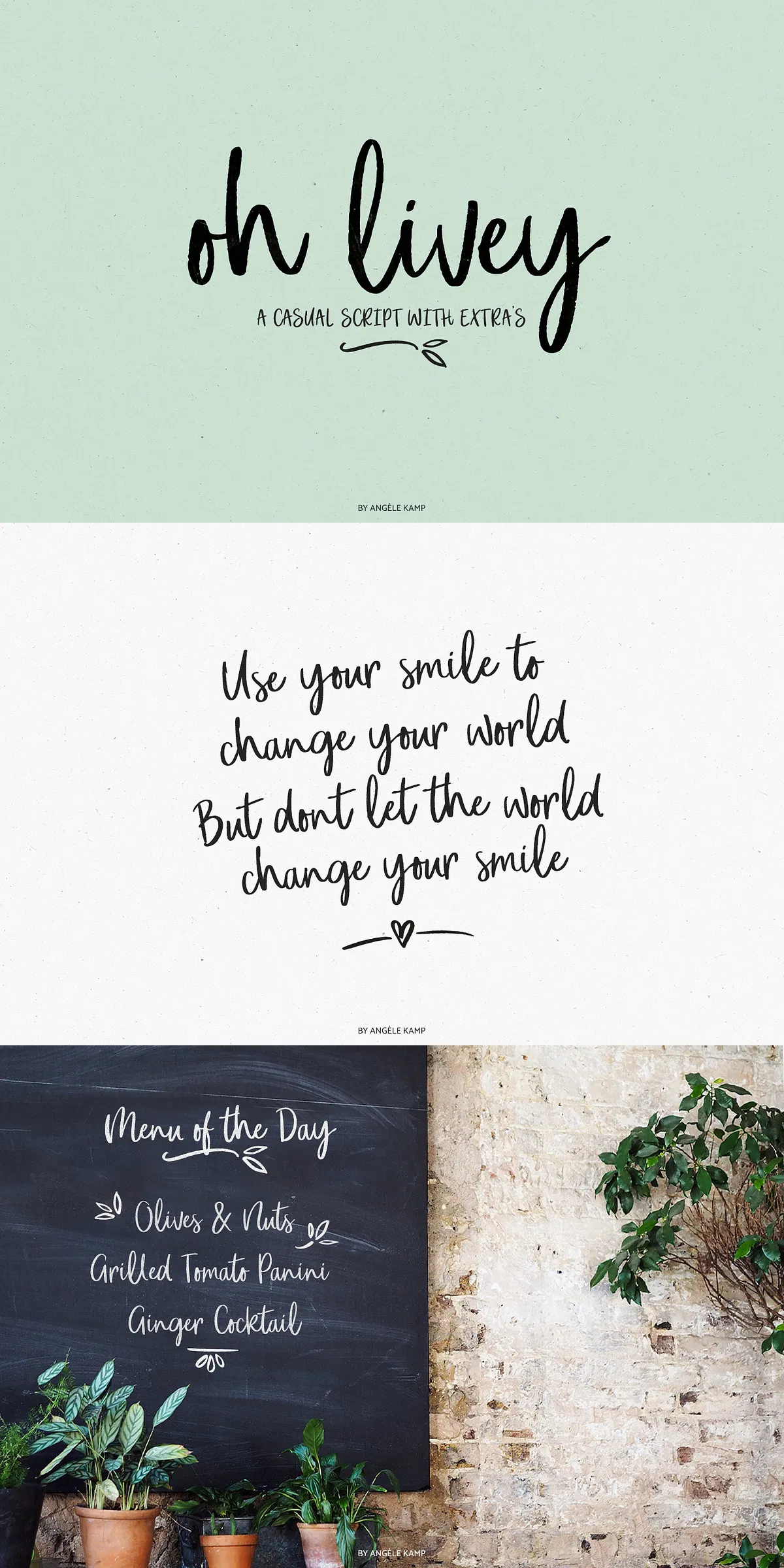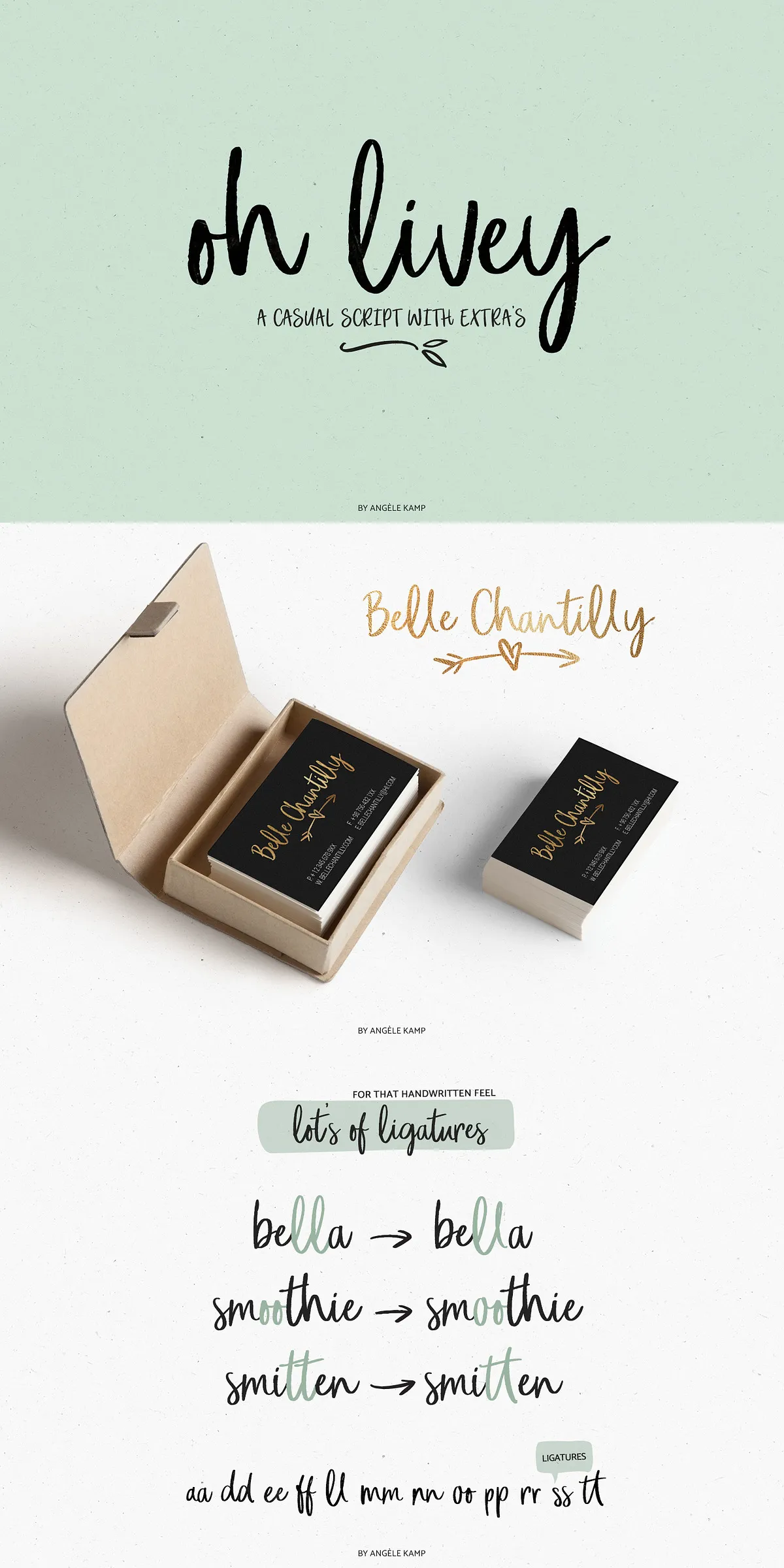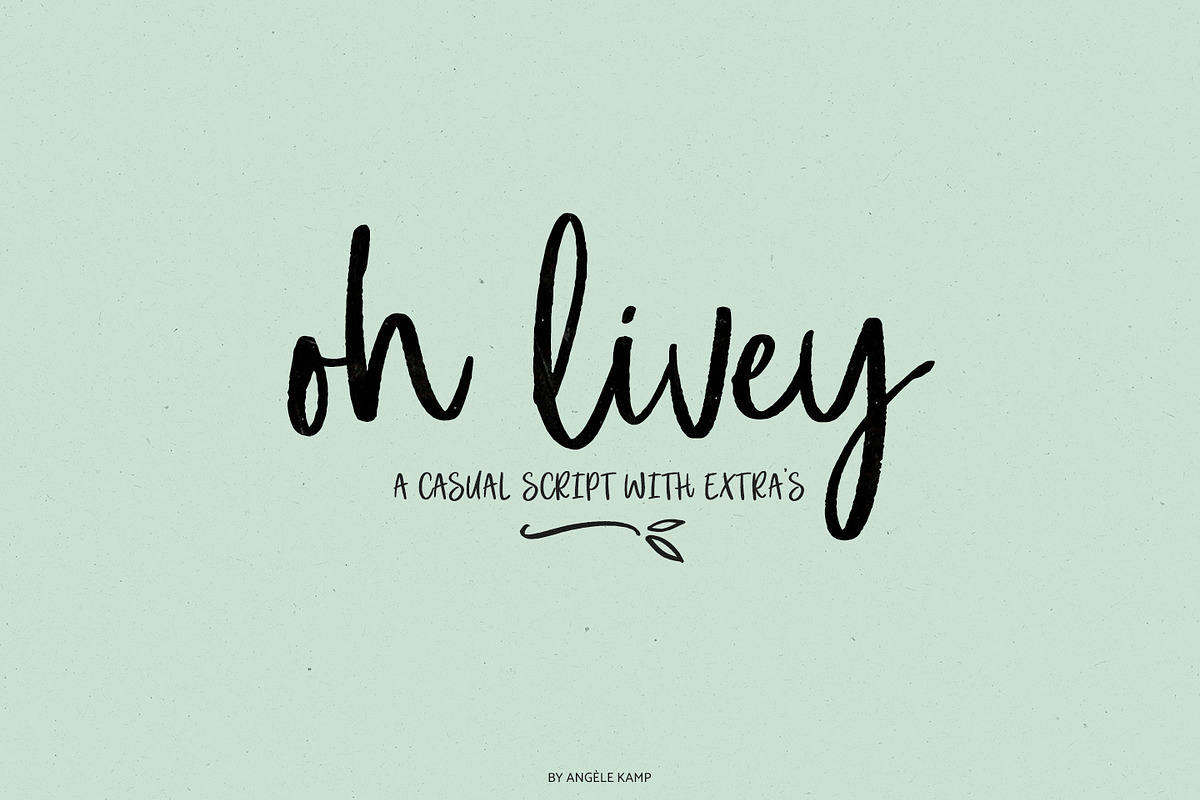
Step into a world where casual brush strokes meet precision engineering. Oh Livey delivers a lively, contemporary vibe that instantly captures attention on quotes, websites, marketing materials, and any creative canvas you choose. The font’s energetic flow encourages designers to experiment, while the built‑in ligatures preserve a genuine handwritten feel. Every character feels hand‑drawn, yet the digital format guarantees consistency across platforms.
Why Oh Livey Elevates Your Creative Projects and Boosts Brand Personality
When you need a typeface that feels both relaxed and refined, Oh Livey answers the call. Its brush‑style strokes convey approachability, making it ideal for lifestyle brands, boutique cafés, wedding invitations, and social‑media graphics. The font’s modern rhythm guides the eye, encouraging readers to linger on the message. By choosing Oh Livey, you empower your audience to experience a friendly, human touch that static sans‑serif fonts rarely achieve.
Dynamic Features That Drive Design Efficiency and Visual Impact
- Rich Ligature Set – Over a dozen contextual ligatures automatically smooth awkward letter combinations, delivering fluid, uninterrupted handwriting that feels natural and purposeful.
- Extra Clipart Collection – The bundled Extras pack (OTF + EPS vector) provides ready‑to‑use decorative elements. Simply type the letters a‑z to reveal a library of whimsical graphics that enrich posters, packaging, and digital ads.
- Versatile Weight Options – Use the regular brush weight for subtle statements or amp up the bold version for headlines that demand immediate attention. Both weights maintain legibility, even at smaller sizes.
Meet the Visionary Behind Oh Livey – Designer Angele Kamp
Angele Kamp channels her love for florals, botanicals, watercolors, and hand‑lettering into every glyph she creates. Her design philosophy blends feminine elegance with organic shapes, resulting in a typeface that feels both elegant and approachable. Angele’s portfolio spans worldwide collaborations, delivering art, illustrations, and fonts that resonate with creators seeking a soft, nature‑inspired aesthetic. With Oh Livey, she captures the spontaneity of a brushstroke while preserving the precision required for professional design work.
How Oh Livey Complements Your Existing Brand Toolkit
Pair Oh Livey with clean, geometric sans‑serif fonts such as Montserrat, Roboto, or Open Sans to create a balanced visual hierarchy. The brush script supplies warmth and personality, while the sans‑serif anchors the layout with modern clarity. This combination works especially well for:
- Brand identities seeking a handcrafted, boutique feel.
- Social‑media posts that require eye‑catching headlines.
- Print assets like business cards, flyers, and invitation suites.
- Website headers, banner ads, and e‑commerce product descriptions.
- Digital presentations that benefit from a touch of creativity.
Whether you’re crafting a vibrant Instagram quote, designing a memorable wedding invitation, or building a brand‑centric website, Oh Livey equips you with a lively, adaptable typeface that speaks directly to your audience. Its active curves, generous ligatures, and extra clipart streamline the creative process, letting you focus on storytelling rather than technical tweaks. Download the font, integrate it into your workflow, and watch your designs gain a fresh, humanized personality.